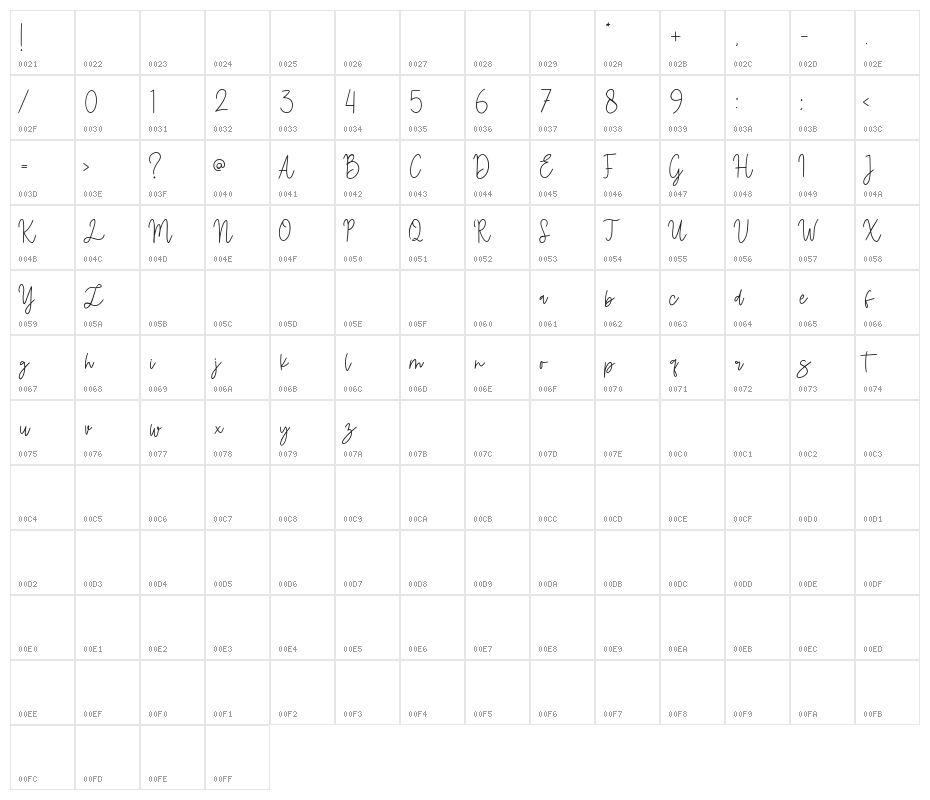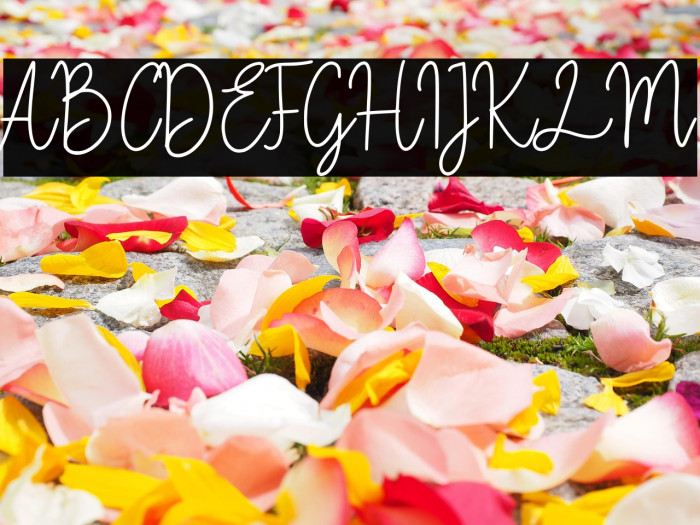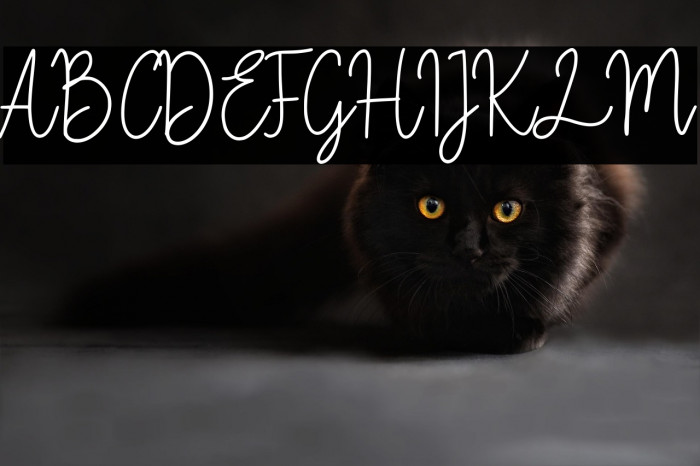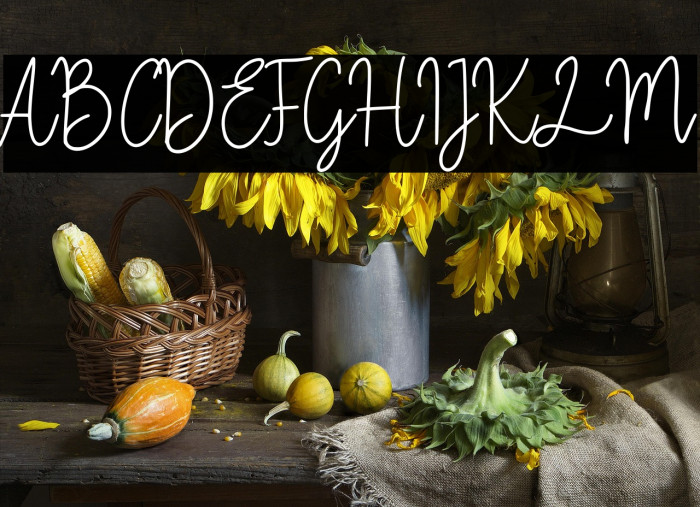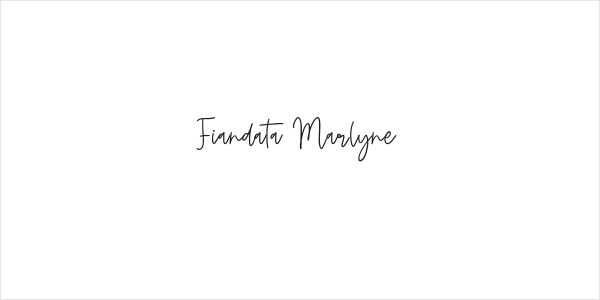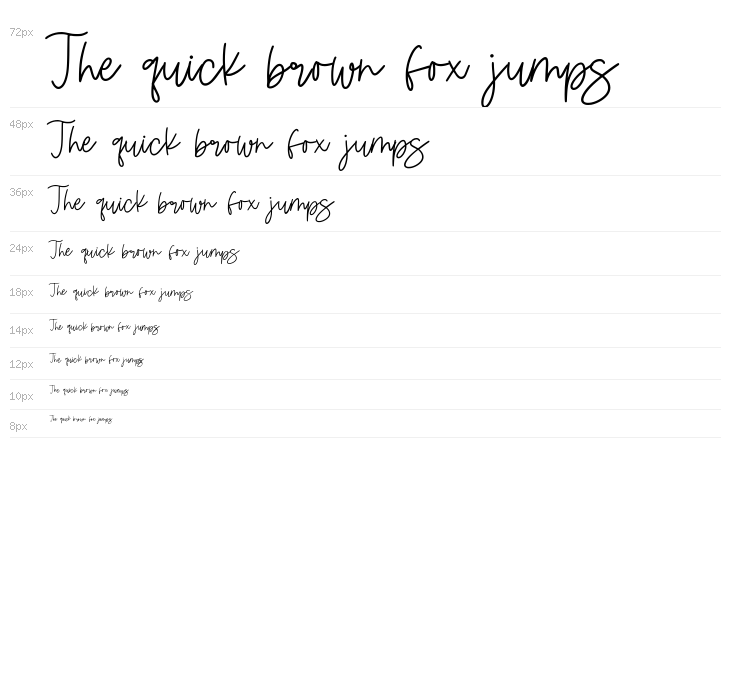
Fiandata Marlyne Font
Fiandata Marlyne Description
This font exhibits a playful and elegant handwritten style, characterized by its fluid and connected letterforms. The uppercase letters are tall and slightly slanted, giving a sense of movement and grace. The lowercase letters maintain a consistent flow, with some letters featuring loops and curls that add to the font's charm. The numerals are clear and legible, matching the overall aesthetic with their slightly whimsical appearance. Special characters are thoughtfully designed to complement the letterforms, ensuring a cohesive look across all text elements. This font's unique style makes it suitable for projects that require a personal touch, such as invitations, greeting cards, and branding materials.